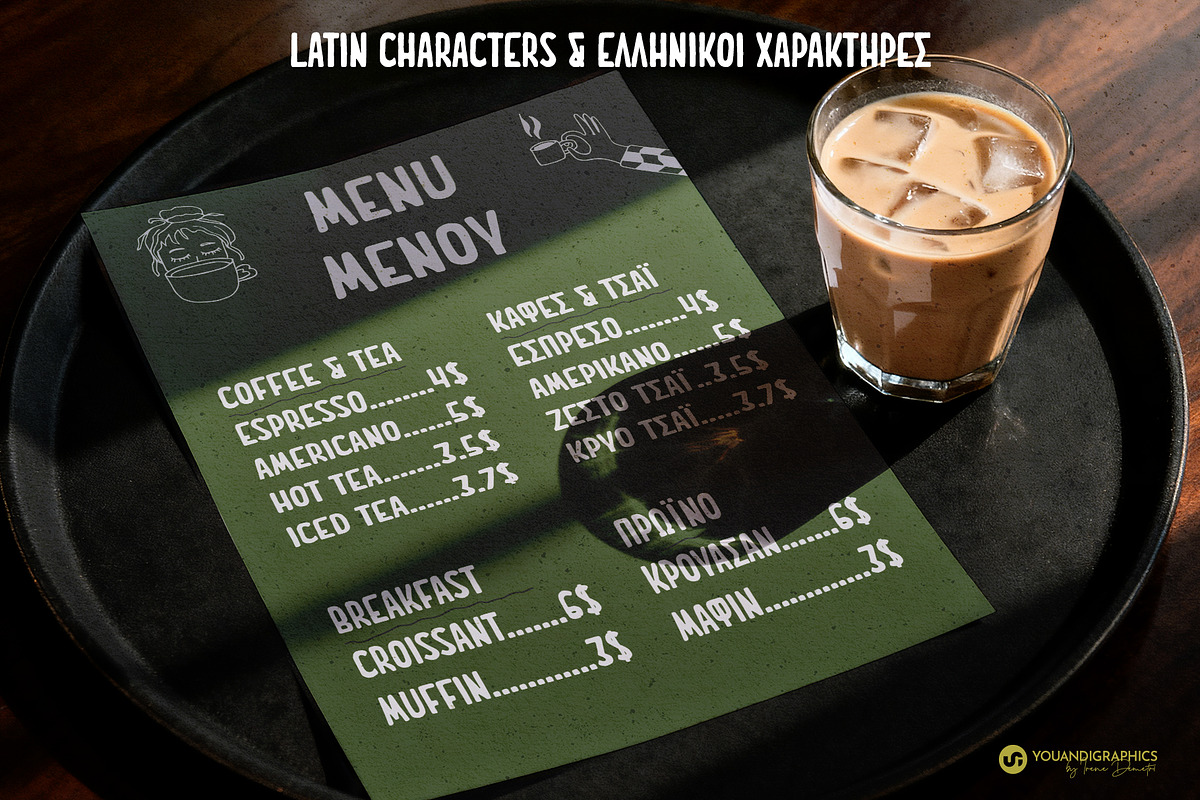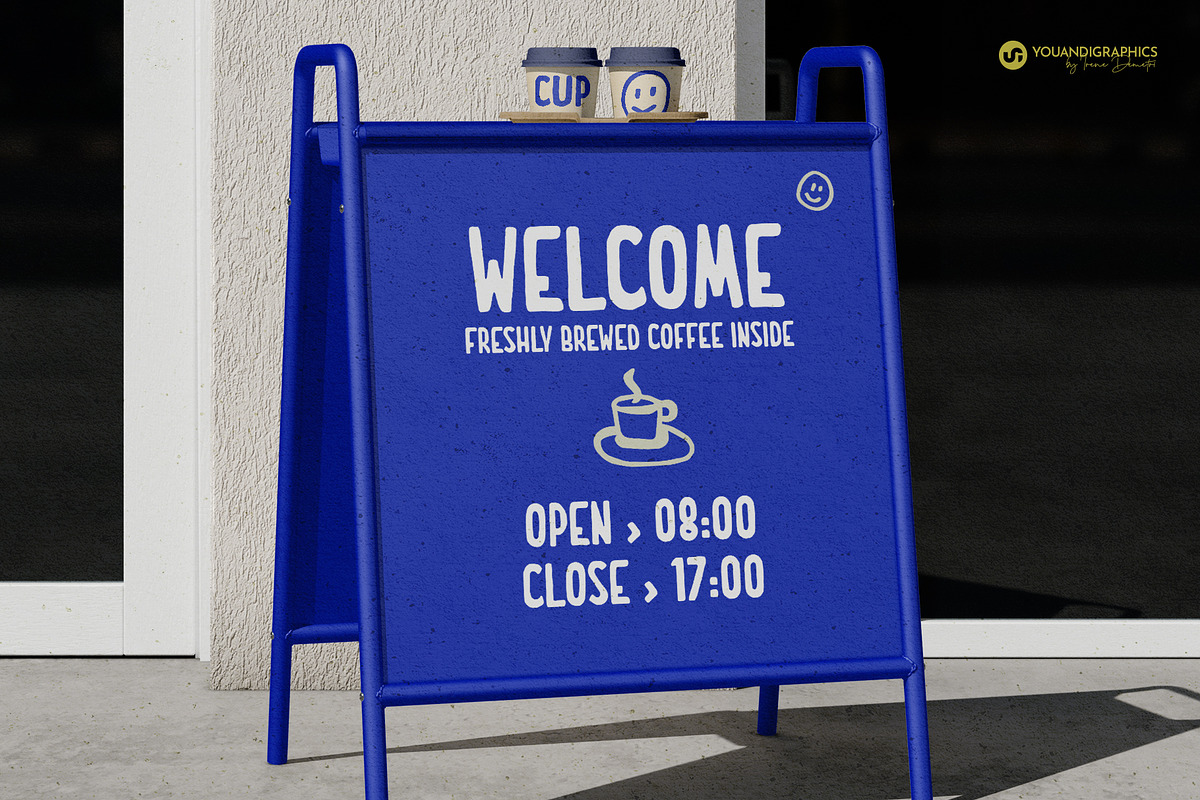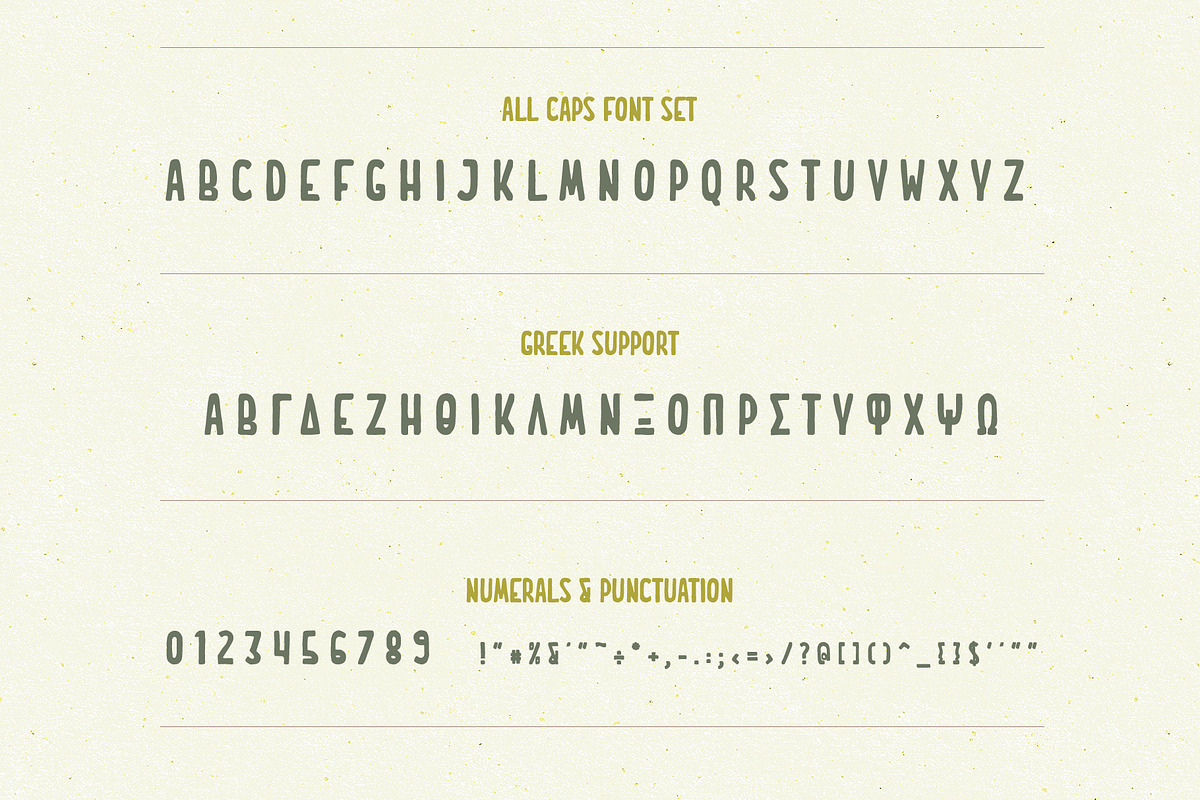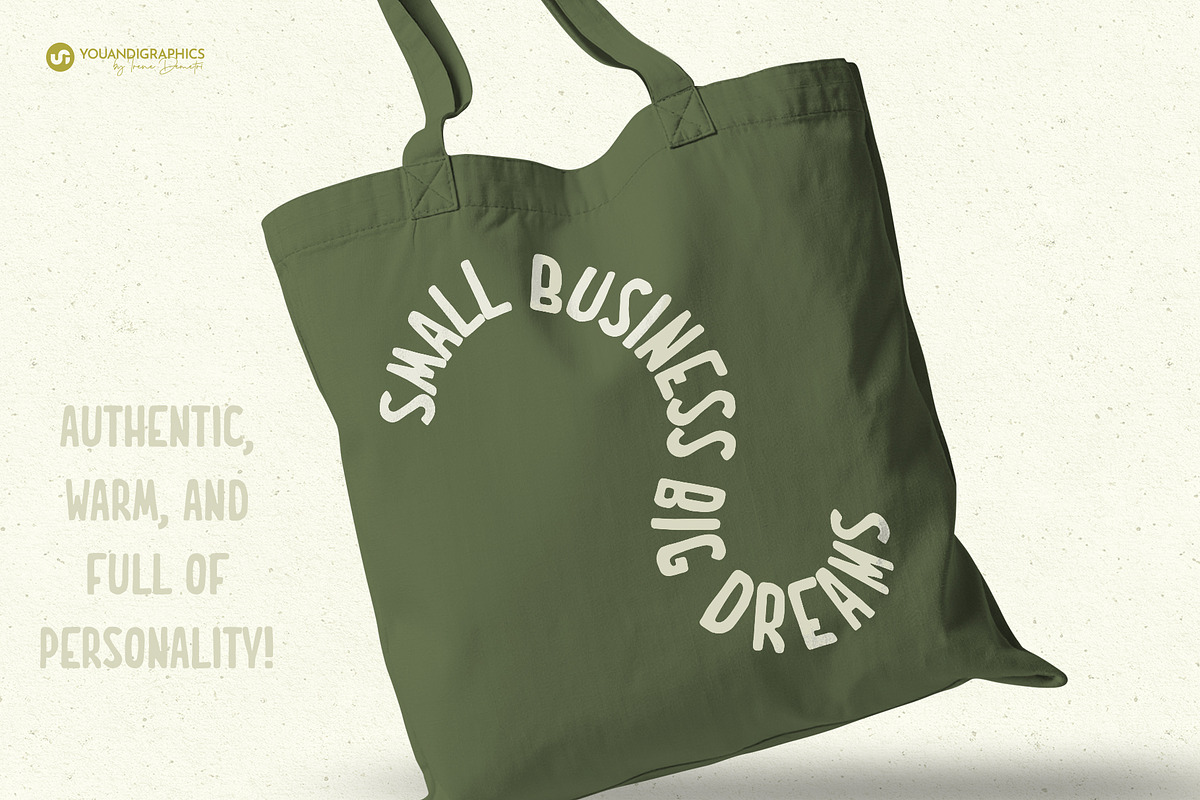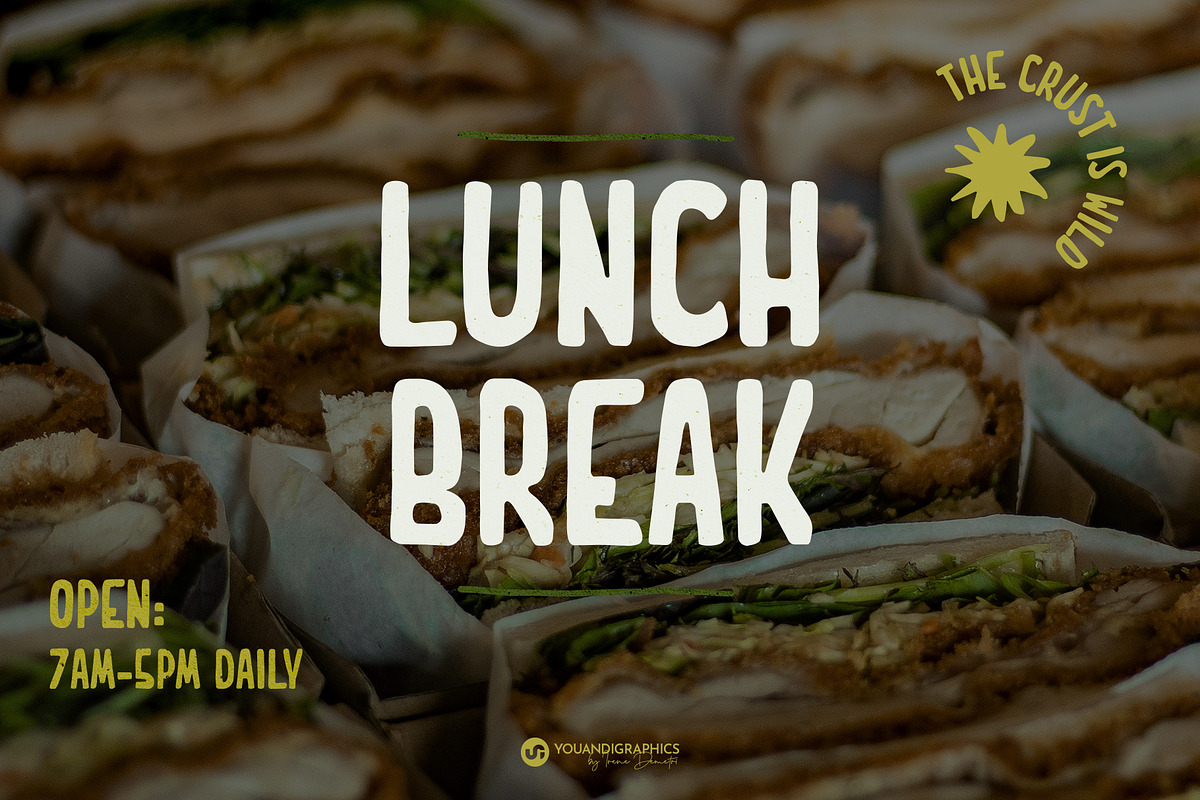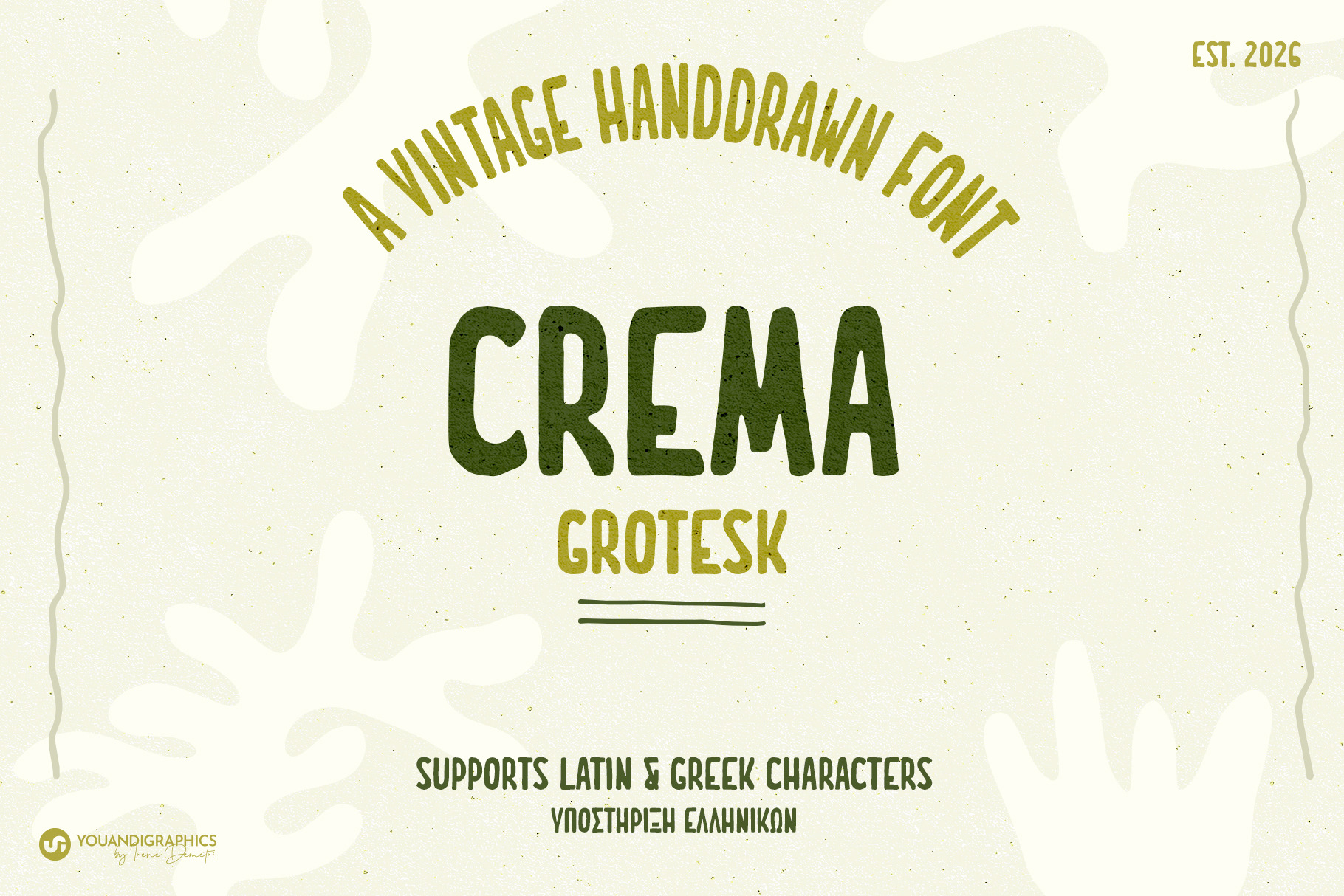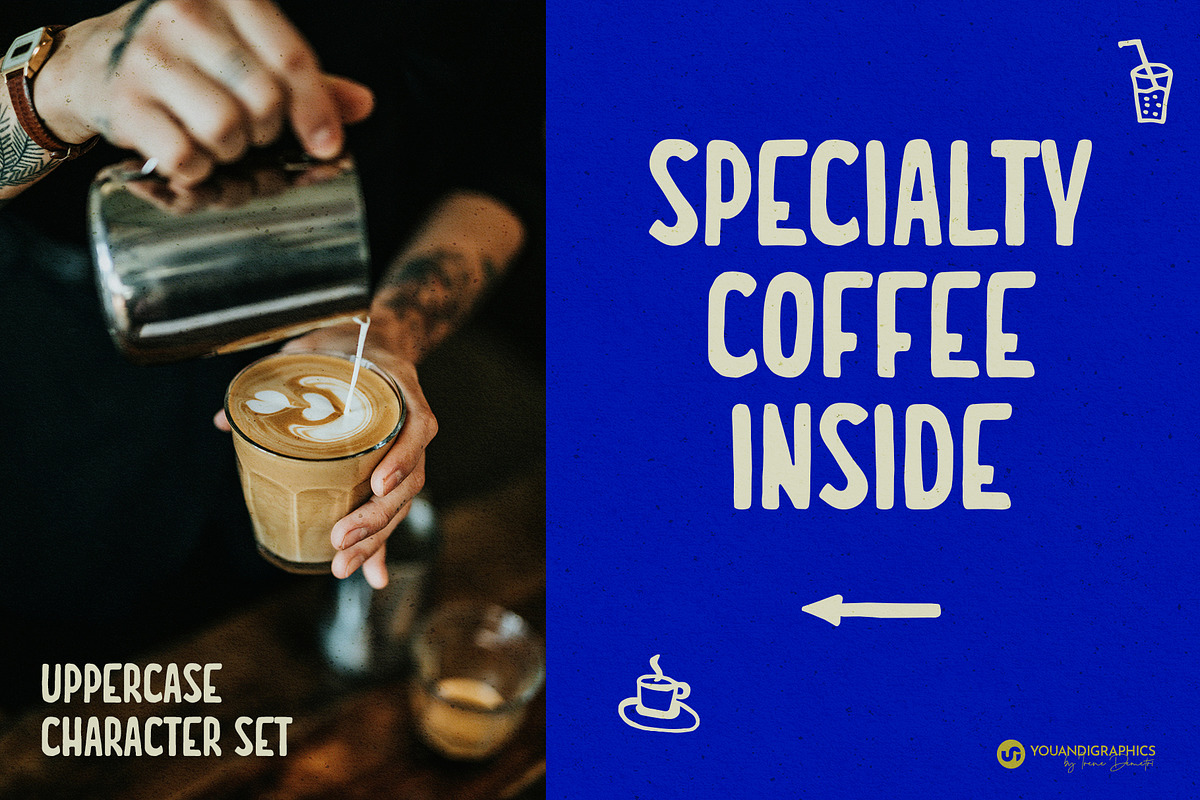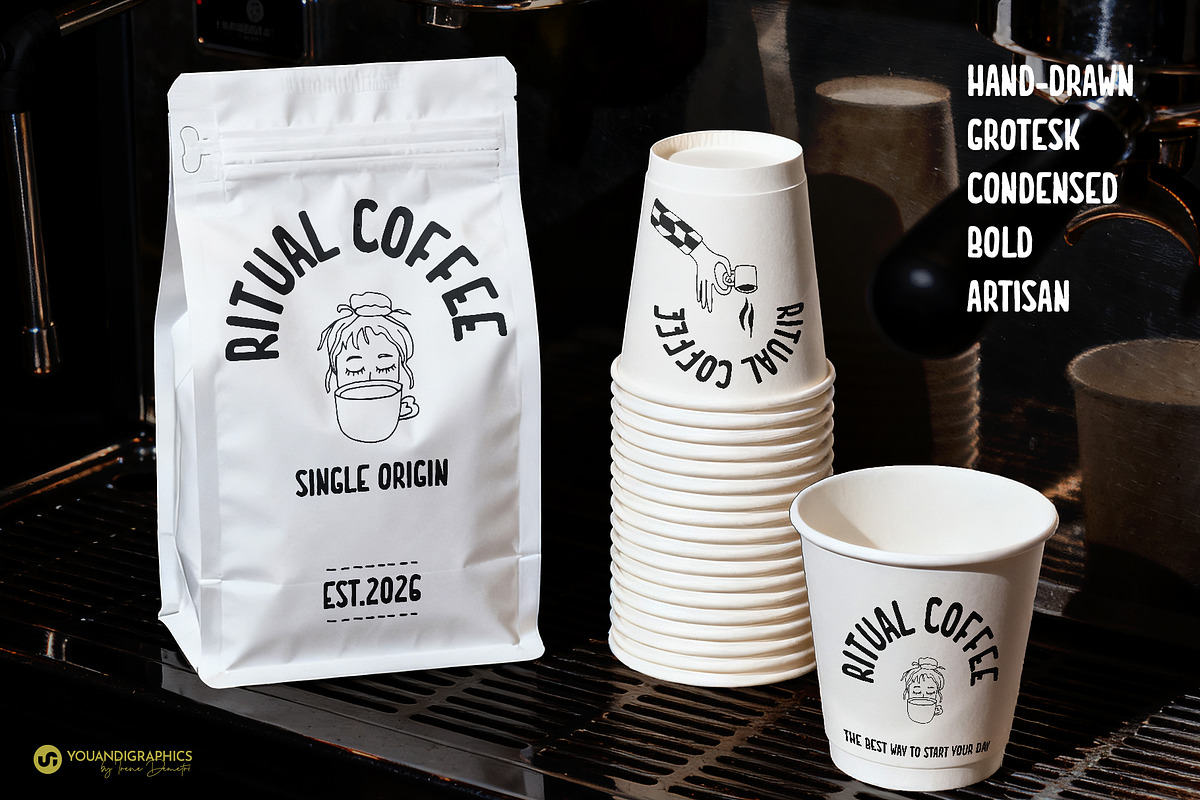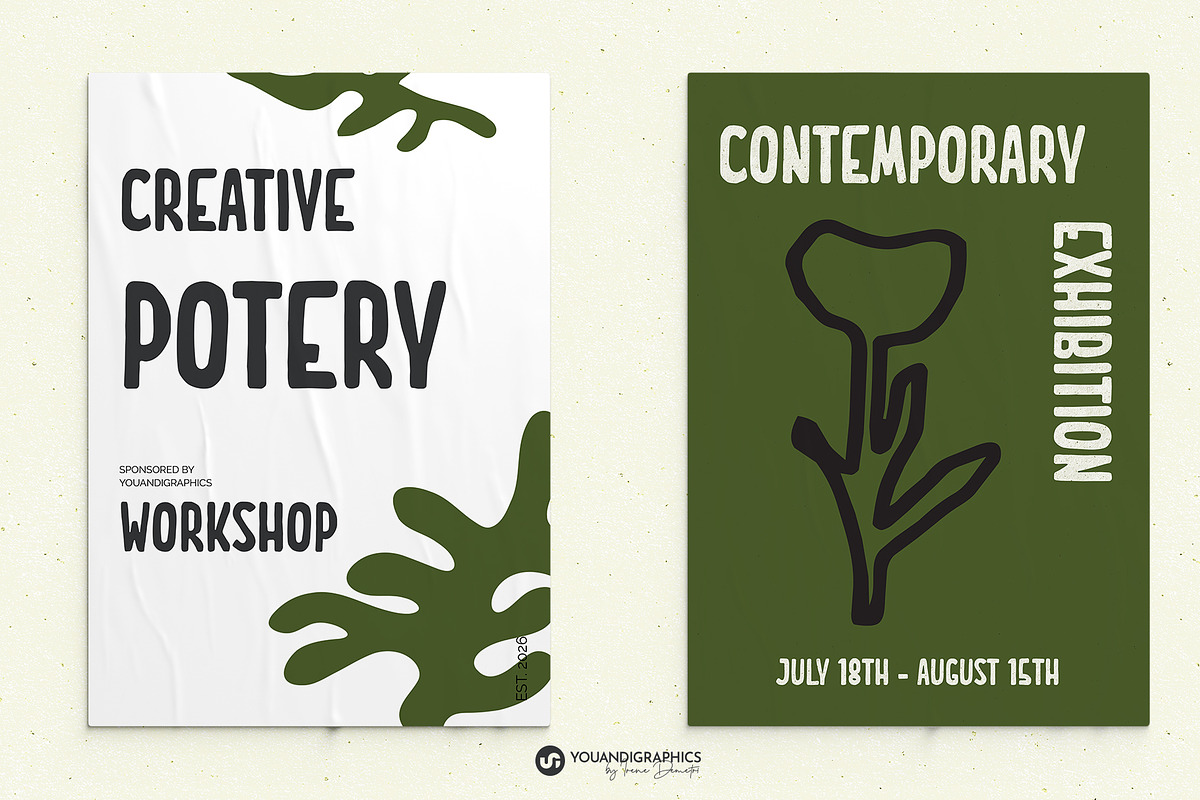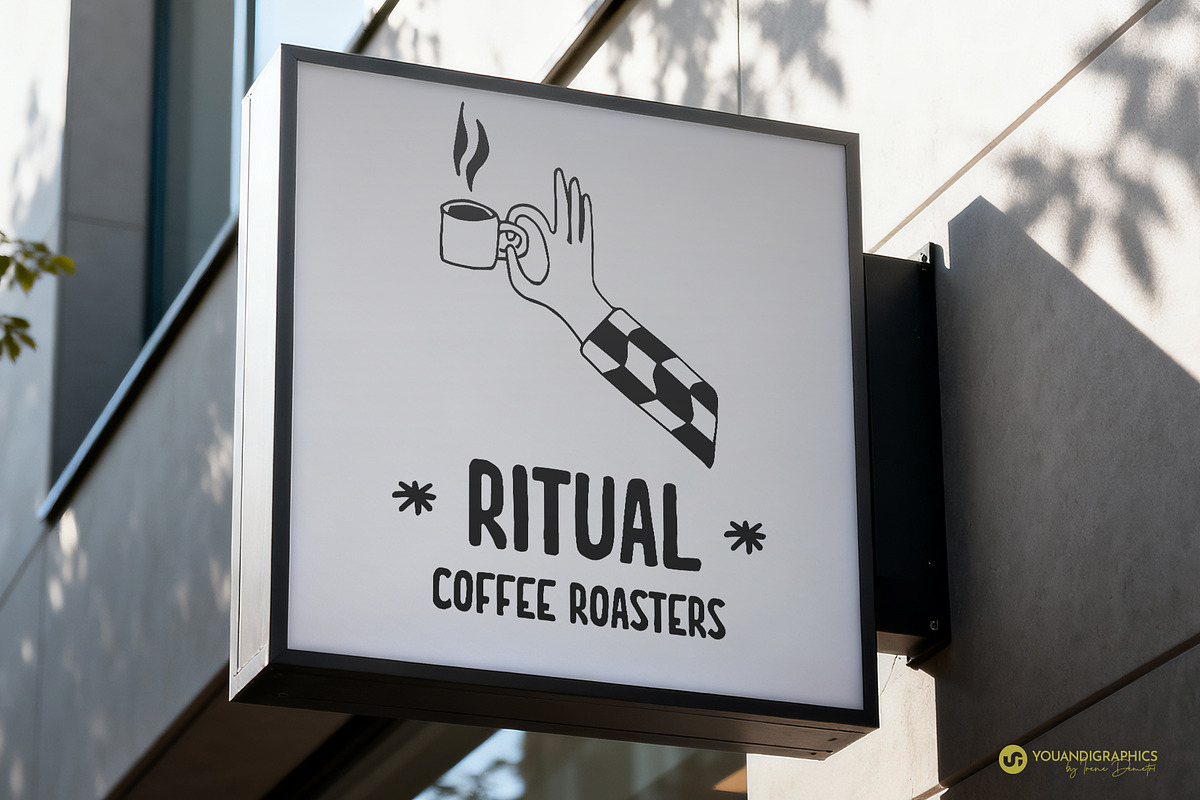
Crema Grotesk Handdrawn Font
Crema Grotesk is a bold, hand-drawn sans serif with a warm, artisanal character. Inspired by vintage packaging, specialty coffee culture, and handcrafted branding, it combines condensed proportions with subtle organic imperfections to create a typeface that feels both modern and authentic.
• Uppercase Character Set • Hand-Drawn Details • Bold Condensed Style • Latin Character Support • Greek Character Support • Numbers & Punctuation Included • OTF Format
Designed to make a statement, Crema Grotesk works beautifully for logos, packaging, labels, signage, menus, posters, and branding projects that need a confident yet approachable personality.